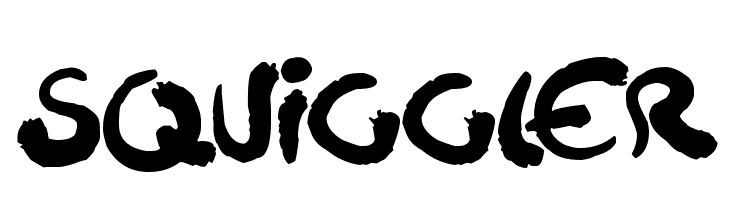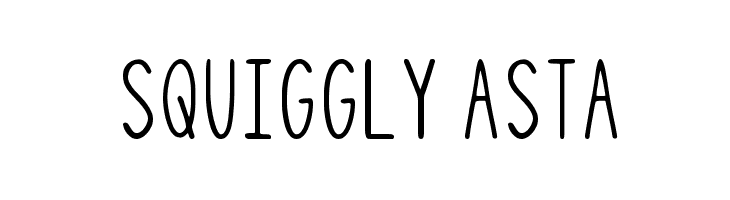
• Squiggler 字体
A bold, brush-style font with dynamic, hand-drawn characters.
• Squiggles 字体
• Squiggley Brown 字体
A whimsical, hand-drawn font with a playful, squiggly style.
• Squiggly 字体
A playful, wavy font with a hand-drawn, organic appearance.
• Squiggly Asta 字体
A playful, handwritten font with tall, narrow letters and consistent stroke width.
• Squiggly Asta 字体
A playful, handwritten-style font with tall, narrow characters.
• Squiggly Regular 字体
A playful, squiggly outline font with a hand-drawn aesthetic.
• SquigglyAsta 字体
A playful, hand-drawn font with tall, narrow characters and a whimsical style.
• SquigglyAsta 字体
A playful, hand-drawn font with wavy lines and a casual style.
• SquigglyLittleWiggly 字体
A whimsical, swirly font with a playful and artistic design.